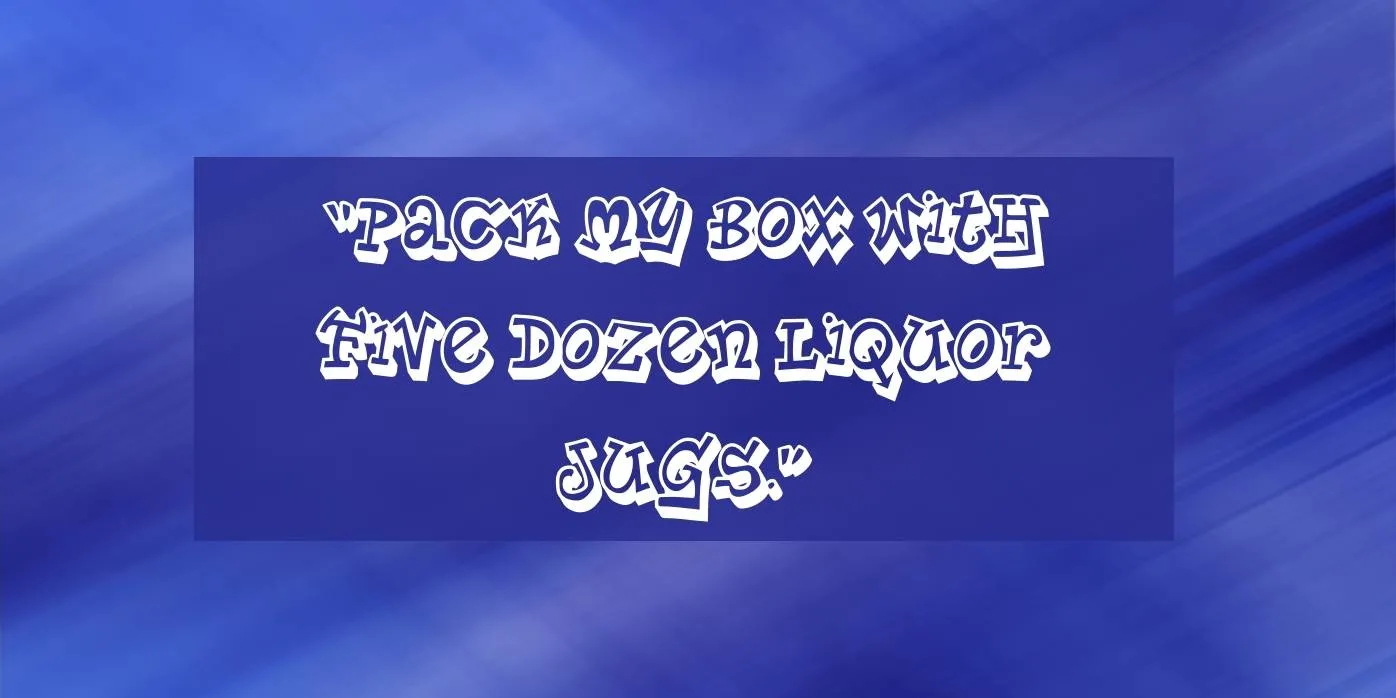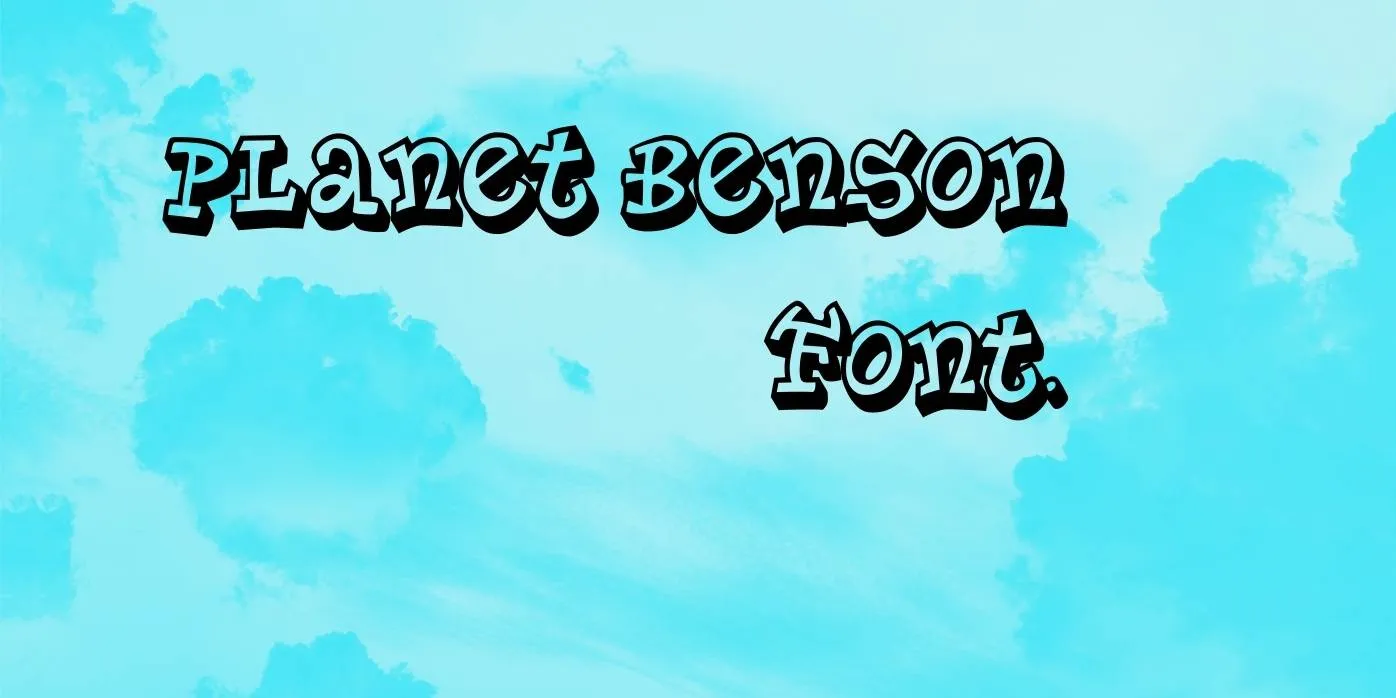
Planet Benson Font
Planet Benson Font was designed by Ray Larabie and is available freely for download. This classic font was created and still it is popular today. It is useful when you want to add some character to an artwork. This typeface is very famous among designers, even you can spot it on t-shirts.
Tiki Island Font is similar to this typeface. Its copy and paste function is best. This font will bring your project much character and quirk. Its unique characters help to stand out from the crowd.
This cute Font has an awesome look you can add this font to any of your projects easily.